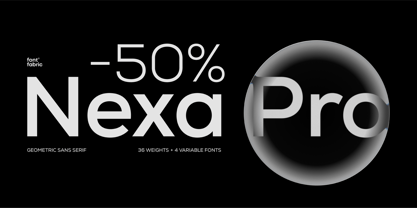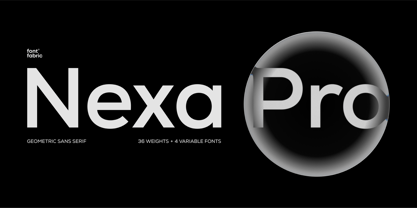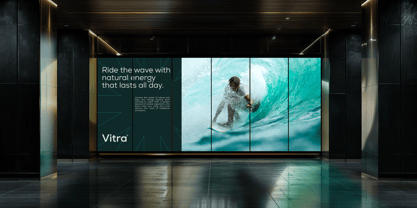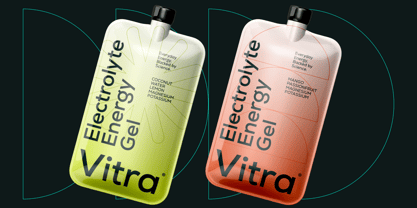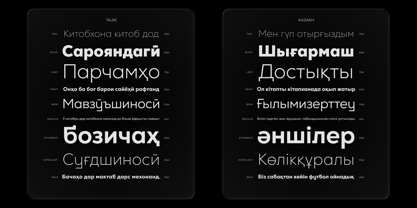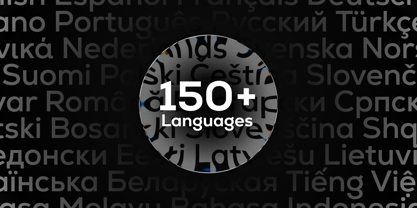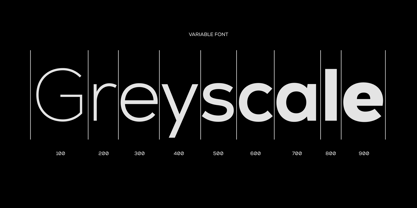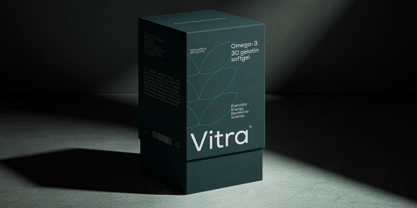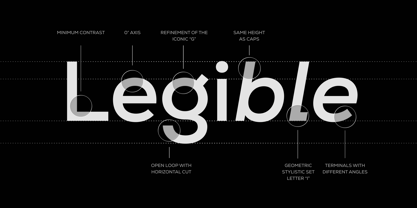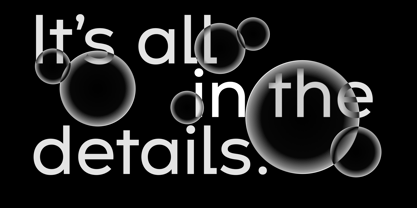
Nexa Pro
by Fontfabric
The Nexa Pro Font Family was designed by Svetoslav Simov, Vika Usmanova, Ani Dimitrova, Ivelina Martinova and published by Fontfabric. Nexa Pro contains 40 styles and family package options. More about this family
Nexa Pro is the evolution of one of Fontfabric’s most celebrated geometric sans-serif families — redesigned for the needs of today’s global creatives. Built on the clean, modern spirit of the original Nexa, the Pro version refines every curve and counter, expands multilingual support, and introduces new typographic tools for ultimate flexibility. Whether you’re designing branding systems, editorial layouts, or digital interfaces, Nexa Pro keeps your typography precise, legible, and effortlessly contemporary. Why Choose Nexa Pro? Nexa Pro is a sans-serif typeface designed for various design applications. Its refined geometric structure and optical balance make it an excellent choice for creatives who want to make a lasting impression with their work. Whether you're working on branding, editorial design, or websites, this font delivers clarity, sophistication, and modern versatility across every medium. With a total of 40 styles, advanced OpenType features, and multilingual support, Nexa Pro ensures top-quality typography for both print and digital design.
Designers: Svetoslav Simov, Vika Usmanova, Ani Dimitrova, Ivelina Martinova
Foundry: Fontfabric